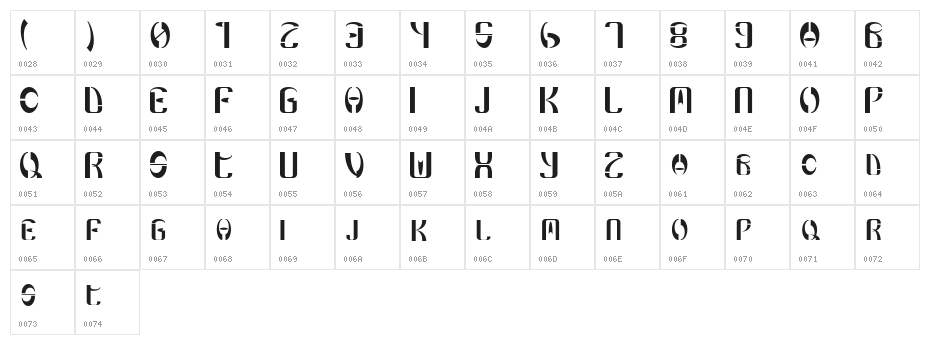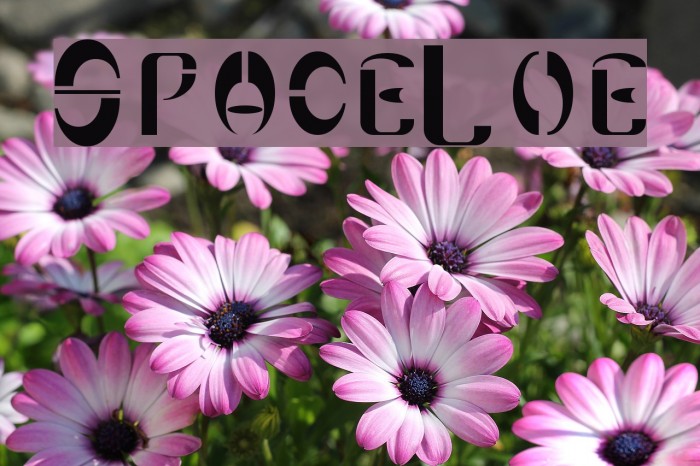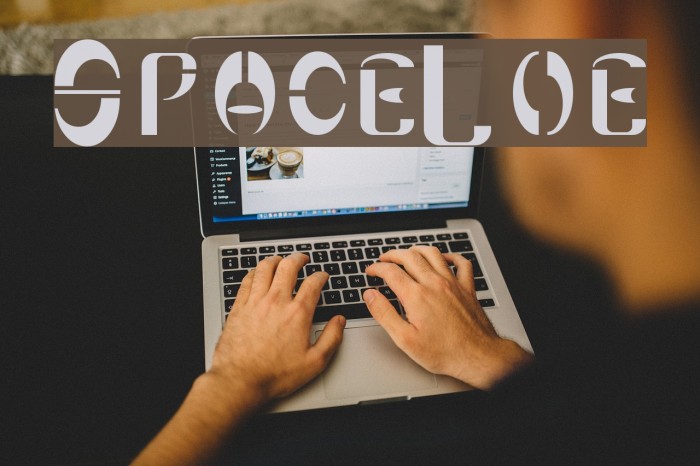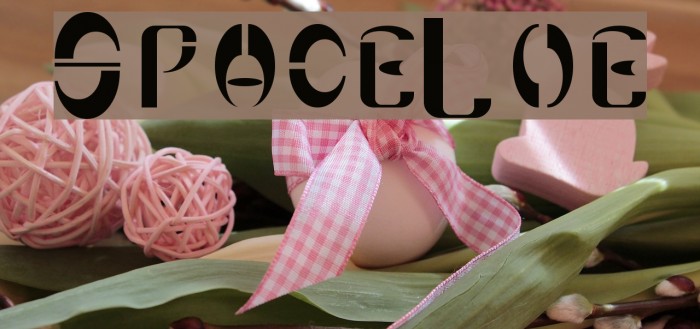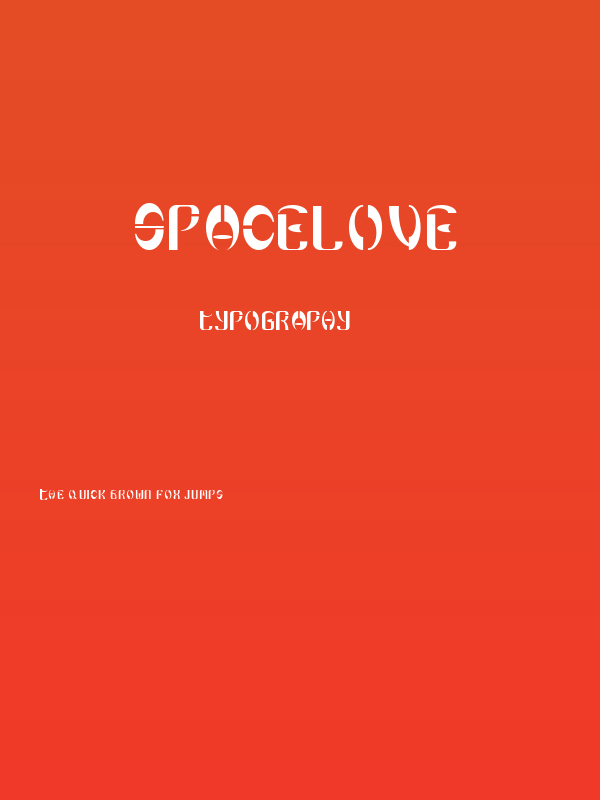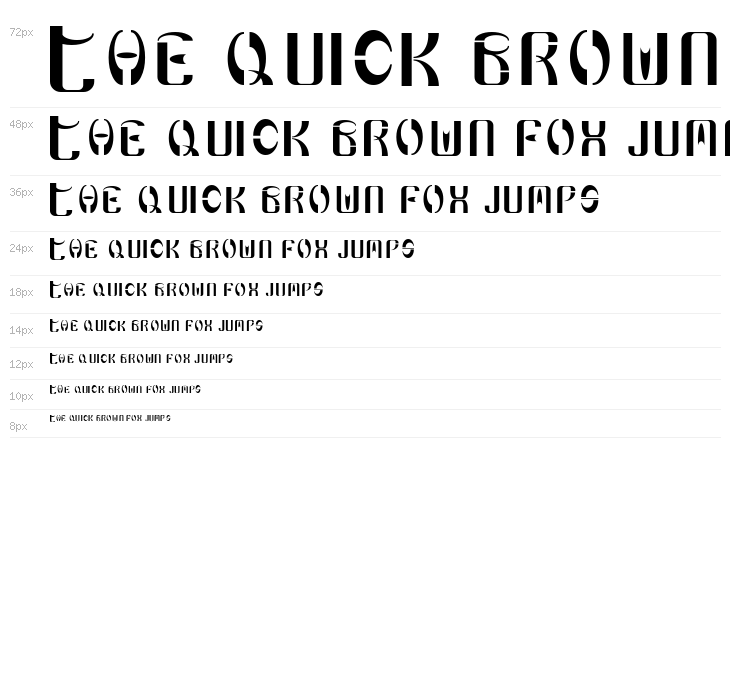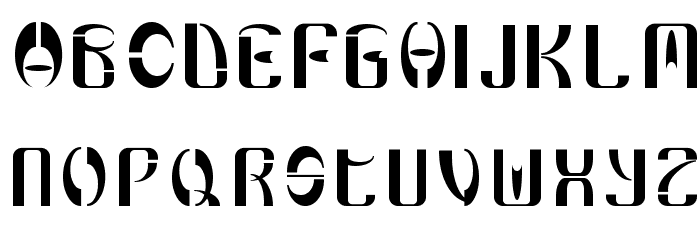
SpaceLove Font
SpaceLove Description
This font features a futuristic and geometric design, characterized by its bold and striking appearance. The letters are crafted with a unique blend of curves and straight lines, creating a sense of movement and modernity. The uppercase and lowercase letters share a consistent style, with a focus on symmetry and balance. Numbers and special characters are designed to match the overall aesthetic, maintaining the same bold and geometric qualities. This font is ideal for projects that require a modern and innovative look, such as technology branding, sci-fi themed designs, or contemporary art projects.
| Proposed Projects | Ideal for technology branding, sci-fi themes, contemporary art, and innovative design projects. |